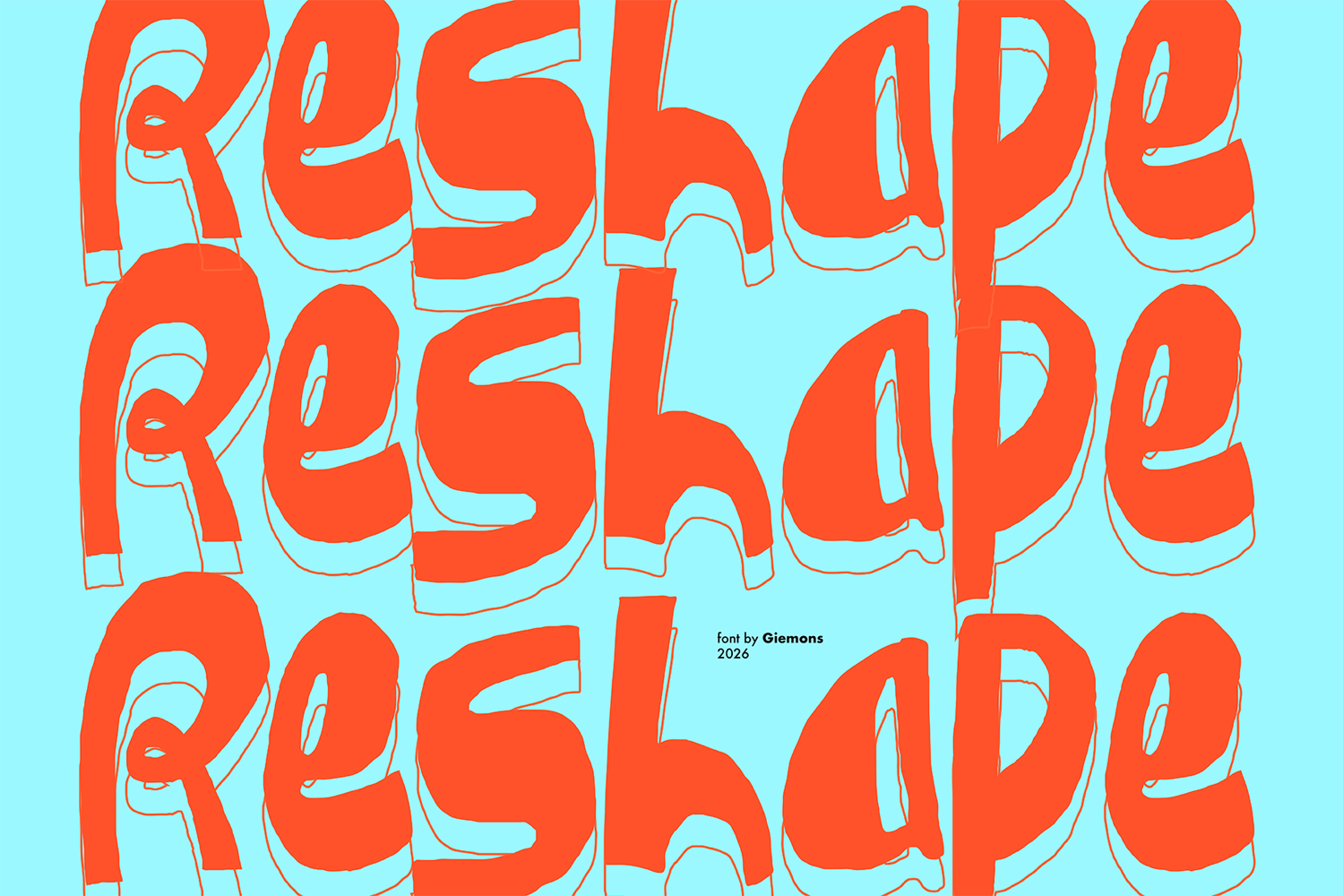
Reshape Font
an Reshape atractive handmade font with unique modern summer style. Can make it natural vibe, use for awesome logos, headlines, poster, flyer, and anymore with a touch of natural style.